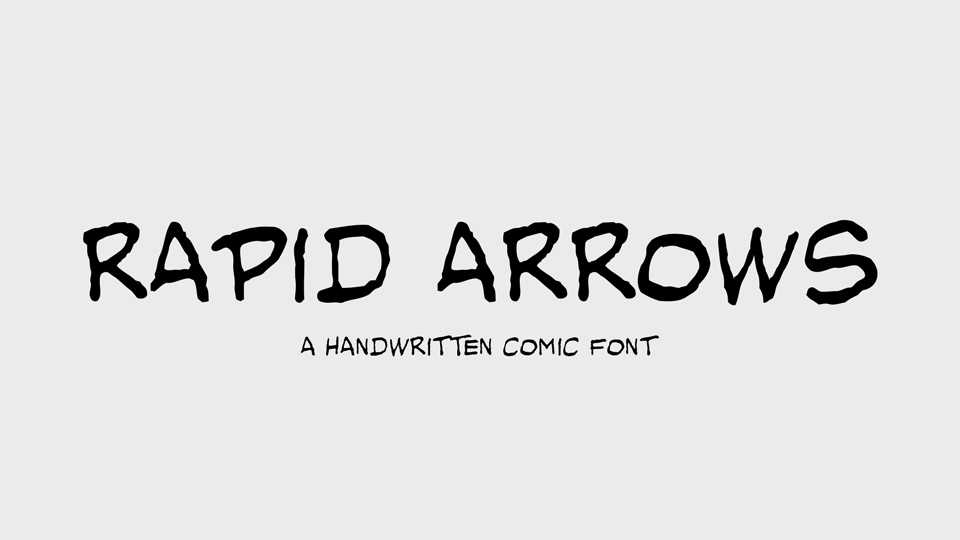
Download Rapid Arrows font, a handwritten typeface freely inspired by Foglars Rapid Arrows comic book. With its rough, hand crafted and casual look Rapid Arrows font is perfect for creating artistic publications, writing quotes and many other designs.
Designer: Michal Hotovec